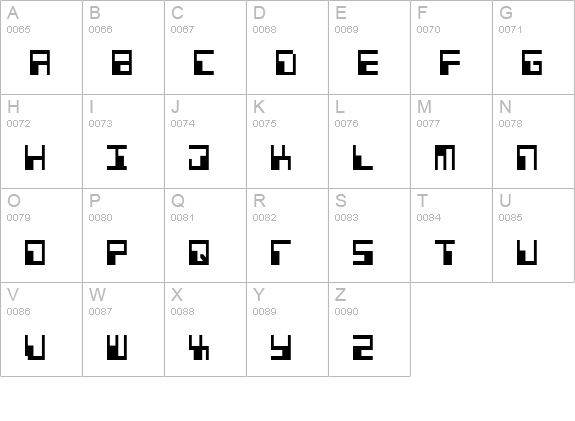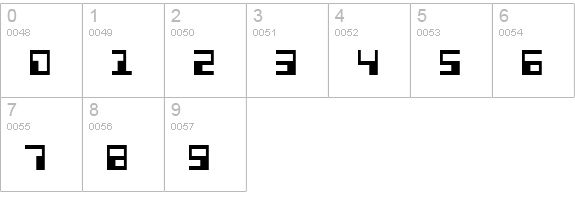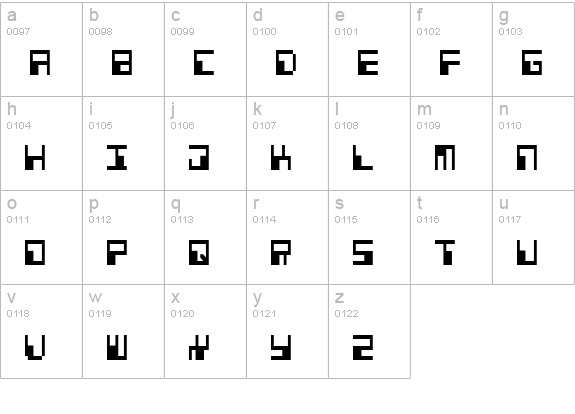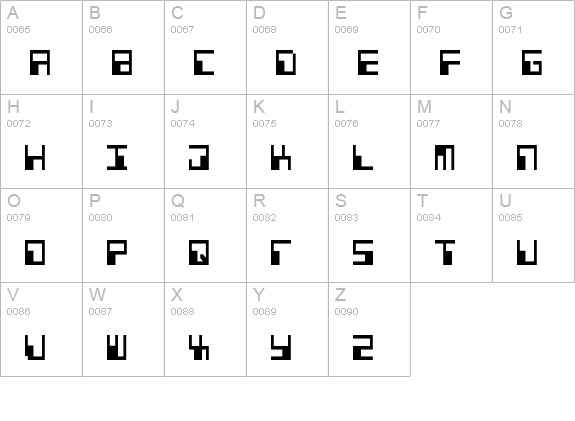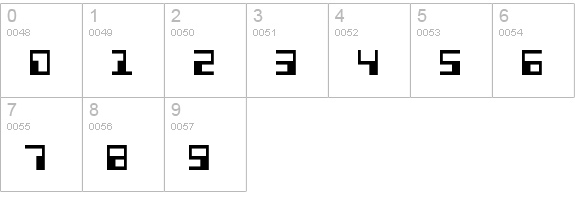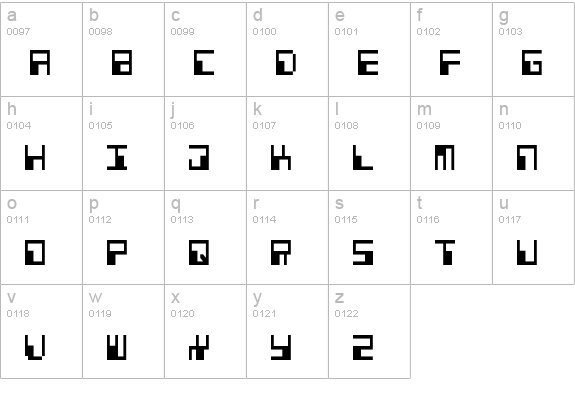
Phaser Bank Condensed is a distinctive, condensed-width variant in the Phaser typeface family \xE2\x80\x94 well suited to design and typography projects.
Phaser Bank Condensed is a sleek and modern display font that exudes a sense of futuristic sophistication. With its clean lines and geometric shapes, this typeface is perfect for adding a contemporary edge to any design project. The condensed style of Phaser Bank makes it ideal for headlines, titles, and branding materials where space is limited but impact is crucial. What sets Phaser Bank Condensed apart is not only its striking design, but also the fact that it is available for free download at FontsMarket.com. This means that you can elevate your designs with this stylish font without breaking the bank. Whether you're working on a website, poster, logo, or any other creative project, Phaser Bank Condensed is sure to make a bold statement and leave a lasting impression. Download this versatile font today and take your designs to the next level!